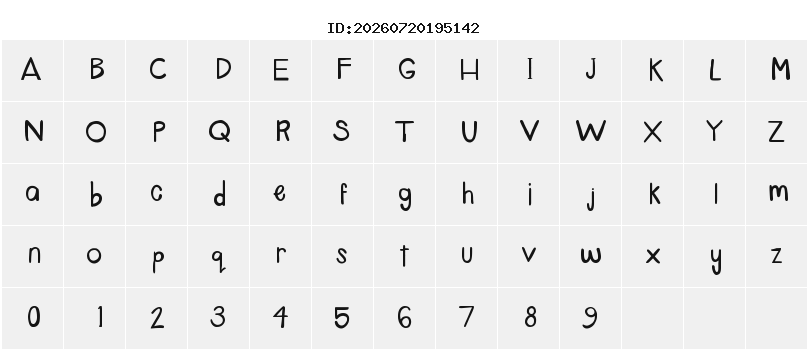
Fourth Grader Font.ttf is a modern, elegant sans-serif font designed for ultimate readability and visual harmony. Perfect for branding, headlines, web design, and print materials.